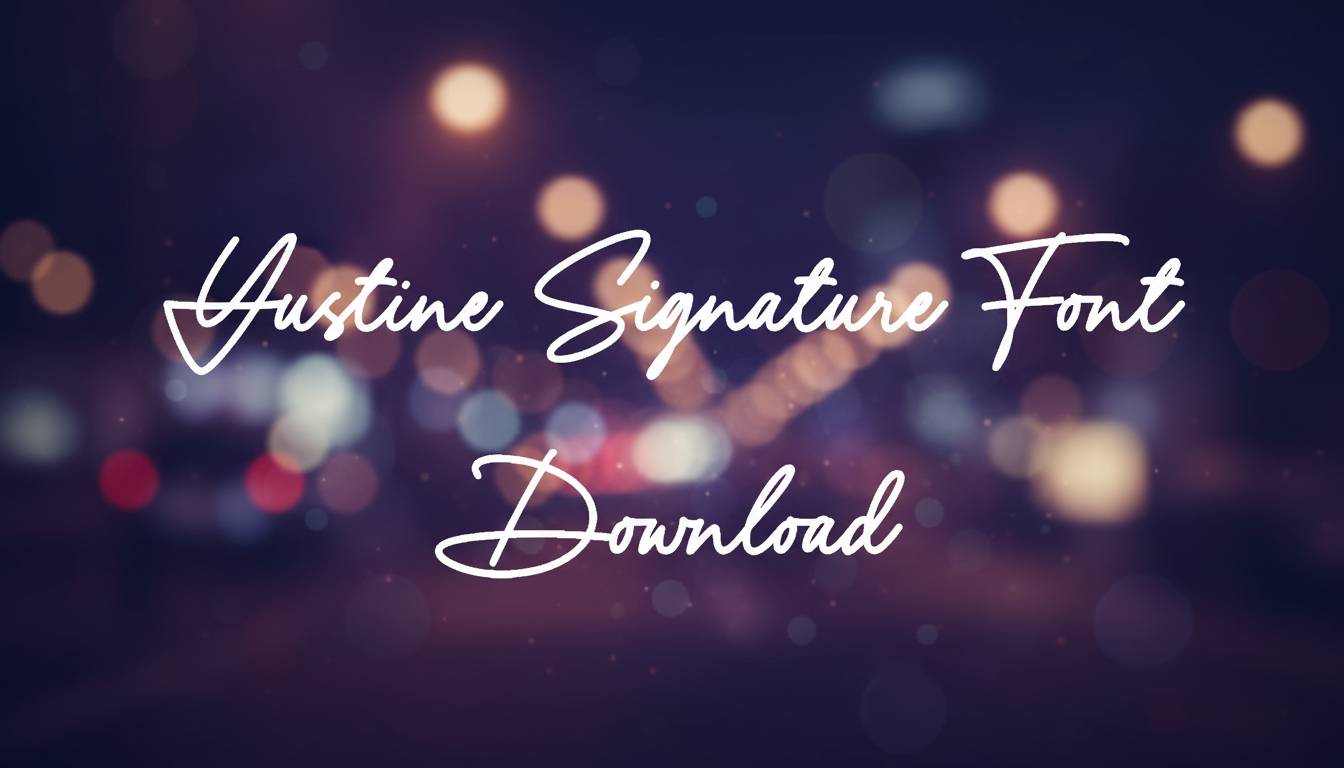
Yustine Signature Font
Yustine Signature
Yustine Signature is a handwritten font created by Dwi Ahidian. It looks like someone actually wrote it by hand: relaxed, friendly and a little imperfect in a good way. It's a free download, and you can try it with your own text in the preview above first.
What You Can Type With Yustine Signature
Yustine Signature covers the full alphabet in upper and lowercase, plus all ten numbers, so you can set names, dates and prices without switching fonts. Common punctuation such as &, !, ? and @ is included as well. It also has the accented letters you need for Spanish, French, German, Portuguese and Italian.
Where Yustine Signature Works Best
Yustine Signature is a natural fit for greeting cards, journal pages and friendly social posts. Set it a bit larger than you would a normal text font. Handwriting styles lose their charm once they get too small to read comfortably.
Does Yustine Signature support accented letters?
Yes. Yustine Signature includes the accented letters needed for Spanish, French, German, Portuguese and Italian, so it works for more than just English.